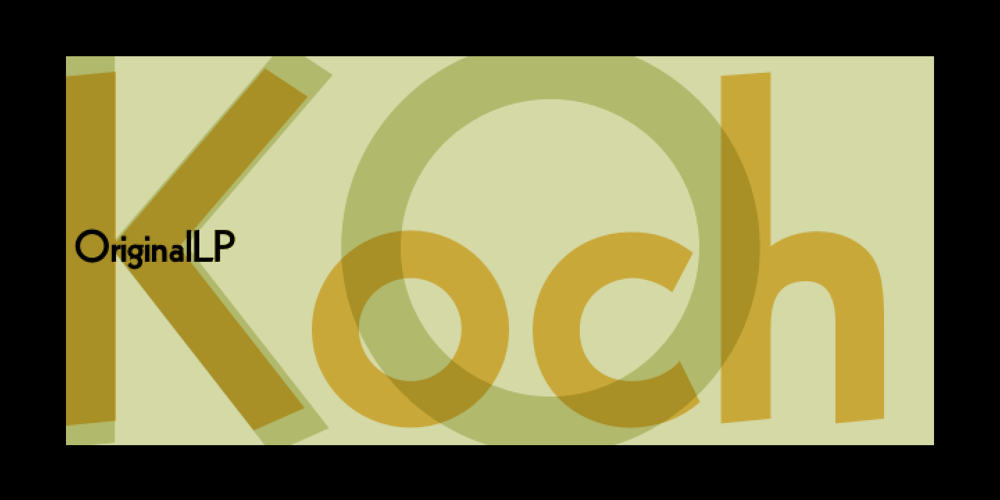
Koch Original LP Font Family was designed by Rudolf Koch, Garrett Boge and published by LetterPerfect. Koch Original LP contains 1 styles and family package options. Koch Original is a revival of the original cut of Rudolf Koch’s classic sans serif, Kabel, retaining its tall ascenders and art deco flavor. It is suitable for both text and display setting.